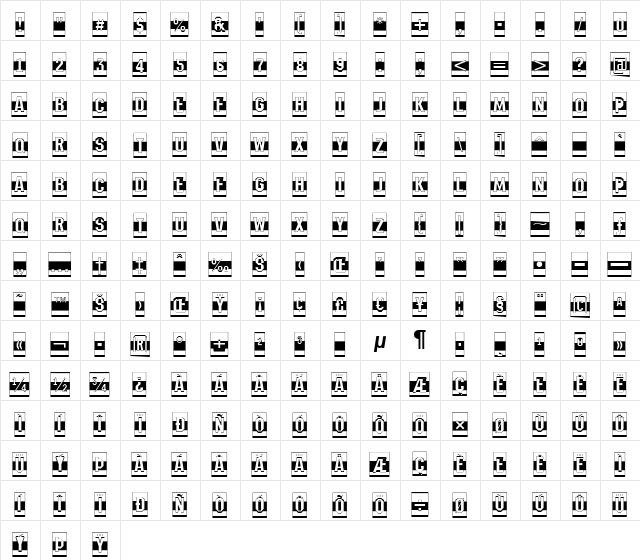
a_MeccanoCmB&W Regular
| Designer | W.Chufarofsky & M.Slutsker |
Design Context for a_MeccanoCmB&W Typeface
a_MeccanoCmB&W is a composed and adaptable typeface that performs quietly and consistently across a wide range of design contexts.